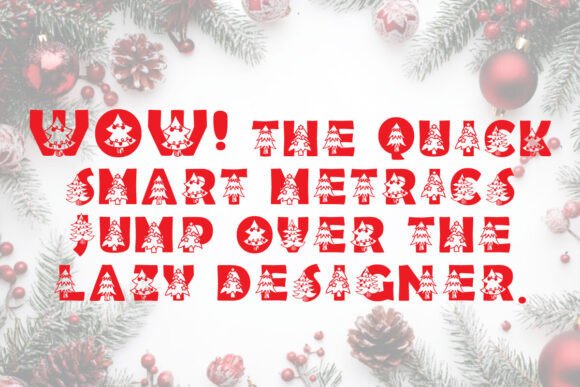
Introduction to Merry Tree Font Font
Fonts play a crucial role in design, and the Merry Tree Font font is a typeface that brings both character and versatility to any project. Whether you’re working on a branding project, a website, or a print design, the Merry Tree Font font offers a unique style that can elevate your work.
Merry Tree Decorative Font is a festive and cheerful typeface, perfect for adding a touch of Christmas magic to any design project.
Its playful curves and tree-inspired flourishes evoke the holiday spirit, making it ideal for seasonal greetings, cards, invitations, banners, and decor This unique font stands out with intricate details that resemble Christmas trees, enhancing the festive atmosphere of your designs.
Key Features of Merry Tree Font Font
Why Choose Merry Tree Font Font?
The Merry Tree Font font is more than just a typeface – it’s a design tool that helps you communicate your message with style and clarity. Its unique character set and versatile design make it suitable for a wide range of applications, from elegant invitations to bold headlines.
With its carefully crafted letterforms and balanced proportions, the Merry Tree Font font ensures readability and visual appeal across all mediums.
What makes Merry Tree Font font special?
The Merry Tree Font font stands out with its unique design, exceptional readability, and versatility across various design applications.